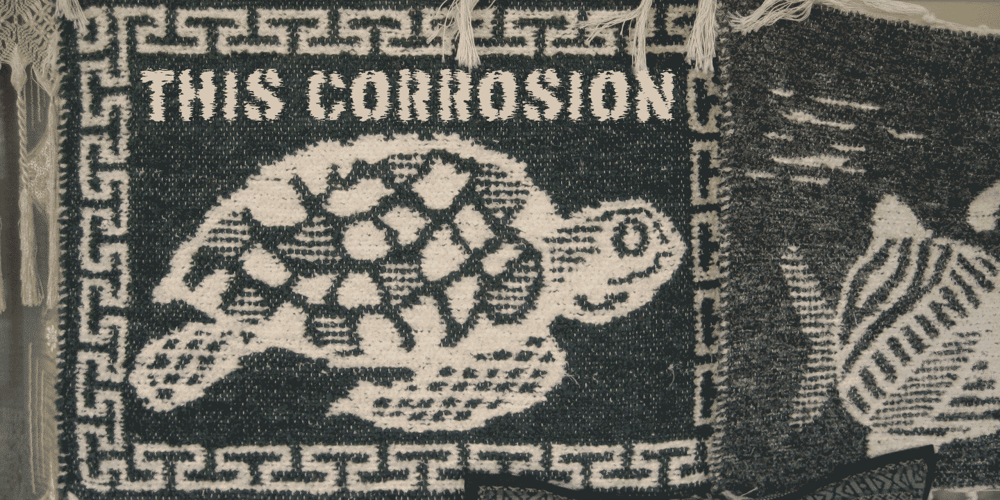
This Corrosion
This Corrosion font
This Corrosion Font Family was designed by published by K-Type. This Corrosion contains 2 styles and family package options. Distressed stencil font that looks wildly windswept, eaten away, or coarsely misprinted on fabric.